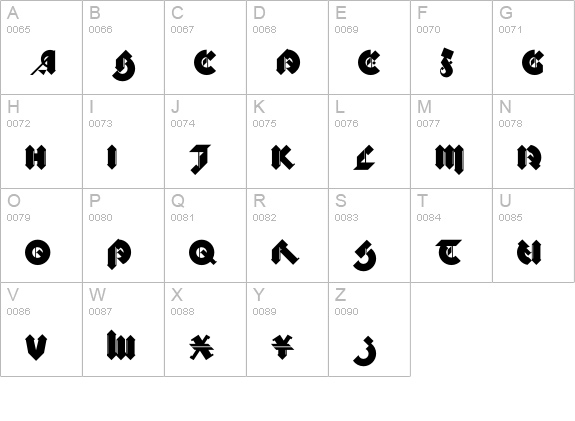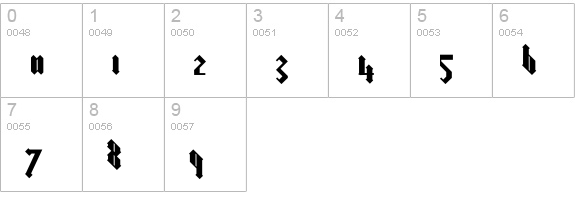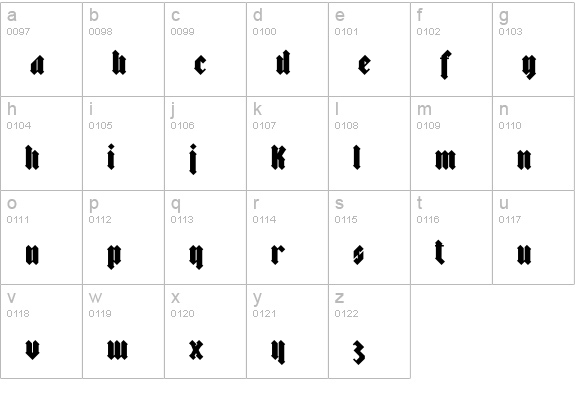
Bastard-ExtraBold is an extra-heavy, attention-grabbing variant in the Bastard typeface family \xE2\x80\x94 well suited to high-impact headlines, posters, and bold branding.
Bastard-ExtraBold font is a powerful and bold typeface that demands attention with its striking design. Its thick lines and sharp edges make it perfect for creating eye-catching headlines, posters, and branding materials. The font exudes a sense of confidence and strength, making it ideal for projects that require a bold statement. What sets Bastard-ExtraBold font apart is that it is available for free download at FontsMarket.com. This means you can easily access this impressive font and incorporate it into your projects without any cost. Whether you're designing a logo, a website, or a promotional material, Bastard-ExtraBold font is a versatile choice that will elevate your designs to the next level. Download this font today and unleash its bold potential in your creative endeavors.